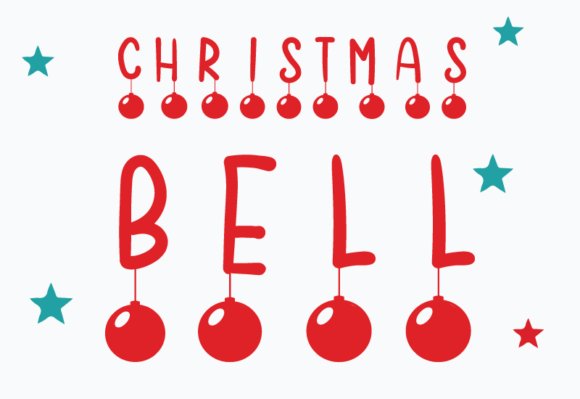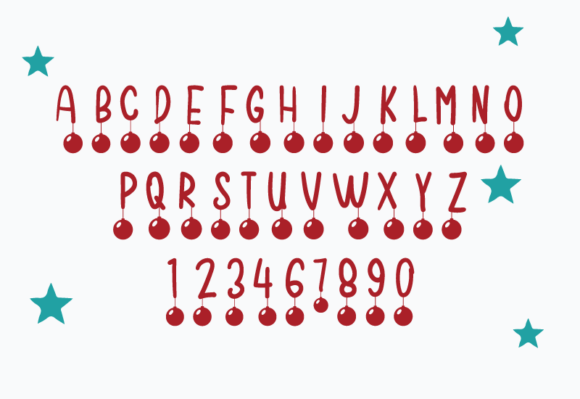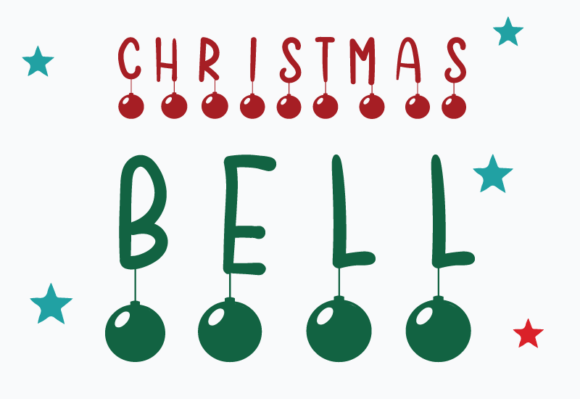
Christmas Bell Font: A Timeless Holiday Classic for Your Festive Designs
The holiday season is upon us, and what better way to celebrate than with a beautiful, festive font that captures the magic of Christmas? Look no further than Christmas Bell, a charming hand-drawn font designed especially for the holiday season. With its playful yet vintage style, Christmas Bell is the perfect addition to any festive design, from invitations and greeting cards to gift tags, seasonal branding, and creative DIY projects.
A Playful yet Vintage Style
Christmas Bell’s unique blend of playfulness and vintage elegance makes it an ideal choice for designers and crafters looking to add a touch of holiday cheer to their work. The font’s hand-drawn design gives it a warm, nostalgic feel that’s reminiscent of traditional holiday decorations and vintage Christmas cards. Whether you’re creating festive invitations, holiday gift tags, or seasonal branding, Christmas Bell is sure to bring a smile to your customers’ faces.
Perfect for Festive Designs
Christmas Bell is a versatile font that can be used in a wide range of festive designs, including:
- Festive Invitations: Create beautiful, eye-catching invitations for holiday parties, Christmas markets, and other seasonal events.
- Holiday Greeting Cards: Add a personal touch to your holiday cards with Christmas Bell’s charming, hand-drawn design.
- Gift Tags: Make your gifts extra special with custom gift tags featuring Christmas Bell.
- Seasonal Branding: Give your business a festive makeover with Christmas Bell, perfect for holiday promotions and seasonal marketing campaigns.
- Creative DIY Projects: Add a touch of holiday magic to your DIY projects, from scrapbooking to crafting, with Christmas Bell.
Timeless Elegance for Your Typography
Christmas Bell is more than just a festive font – it’s a timeless classic that will add a warm, nostalgic touch to your typography. Its elegant design makes it perfect for any design that needs a bit of holiday cheer and classic sophistication. Whether you’re a designer, crafter, or DIY enthusiast, Christmas Bell is the perfect addition to your holiday design toolkit.
Why Choose Christmas Bell?
So why choose Christmas Bell for your holiday designs? Here are just a few reasons:
- Unique Design: Christmas Bell’s hand-drawn design gives it a unique, one-of-a-kind look that’s sure to stand out.
- Versatility: Christmas Bell can be used in a wide range of festive designs, from invitations to gift tags and more.
- Elegance: Christmas Bell’s timeless elegance makes it perfect for any design that needs a bit of holiday cheer and classic sophistication.
Get Ready to Celebrate the Magic of the Holidays
Whether you’re a designer, crafter, or DIY enthusiast, Christmas Bell is the perfect addition to your holiday design toolkit. Its playful yet vintage style, timeless elegance, and versatility make it an ideal choice for any festive design. So go ahead, get creative, and make the most of the holiday season with Christmas Bell!